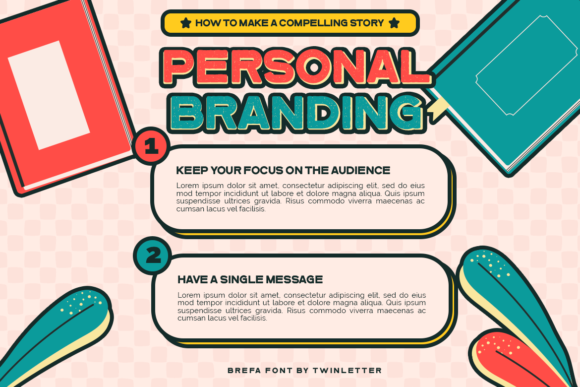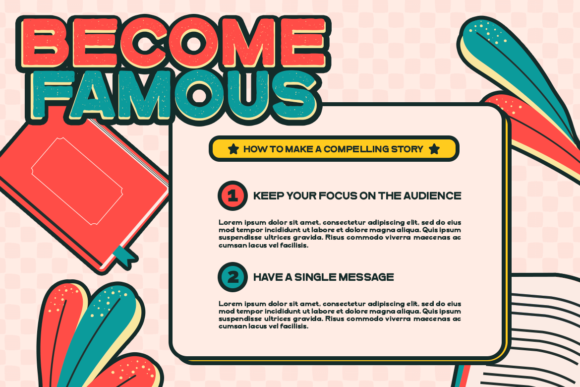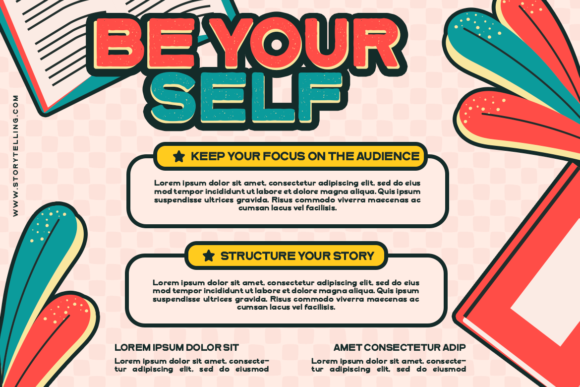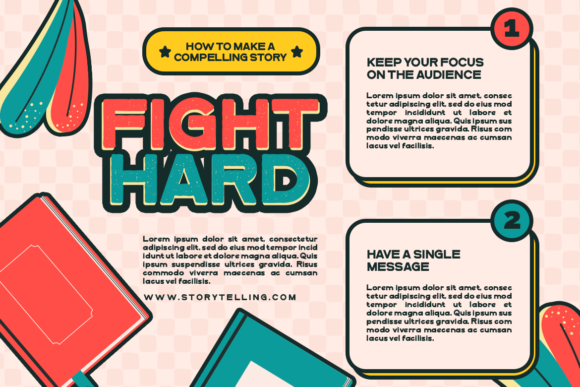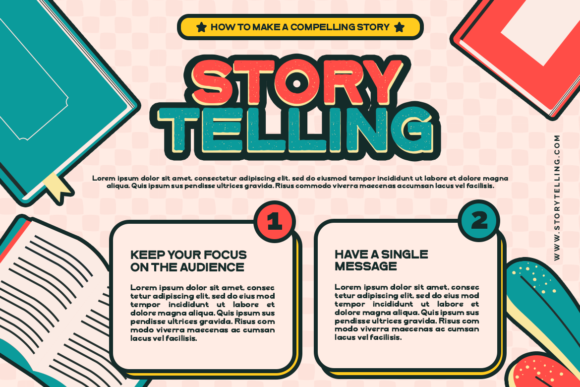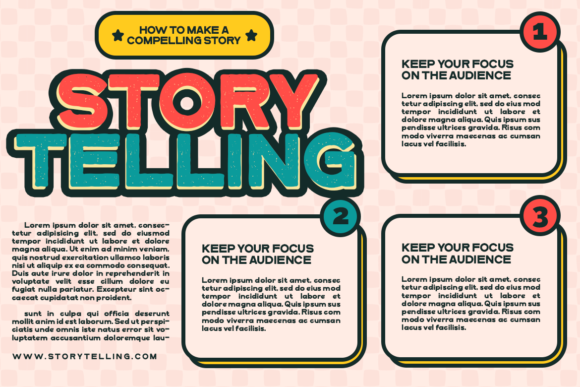
Unleashing Your Creativity with the Perfect Font
Have you ever stared at a blank canvas, eager to bring a fresh design to life, but struggling to find the perfect font to set the tone? We’ve all been there – searching for that elusive combination of style and substance to elevate our work. For designers, the right font can be the difference between a great project and a truly unforgettable one.
Enter the Brefa Font, a bold and eye-catching display font that’s sure to make your designs stand out. With its rough textured and thick lettered design, Brefa Font is perfect for adding a touch of sophistication and personality to your web designs, business cards, or any other project that needs a little extra oomph.
Whether you’re a seasoned pro or just starting out, the Brefa Font is an invaluable addition to any designer’s toolkit. Its versatility and impact make it an essential choice for anyone looking to add a bold touch to their work.
Brefa Font Key Features
- Font Family: Brefa is a sans-serif font family designed for digital use, making it ideal for body text, headings, and titles.
- Character Count: The Brefa font family includes a wide range of characters, including Latin, Cyrillic, and Greek alphabets, as well as punctuation and symbols.
- Unique Characteristics: Brefa’s clean and modern design makes it highly legible, even at small font sizes, and its versatility allows it to work well in a variety of contexts, from corporate branding to creative projects.
- Font Sizes: Brefa is available in 8 font weights, ranging from Light to Black, providing flexibility for designers to create visual hierarchies and emphasis.
Brefa Font Review
I recently had the chance to work with the Brefa Font, and I must say, it’s a unique addition to any design project. ✨ One of the things I appreciate about Brefa is its modern and sleek aesthetic. The font’s clean lines and minimalist approach make it perfect for creating a contemporary feel in any design.
Another aspect I enjoy is the font’s versatility. ✨ Brefa comes in a range of weights and styles, making it suitable for various design applications, from headlines to body text. Additionally, the font’s open-source nature allows for easy modification and customization.
While Brefa is an excellent font, there are a few areas where it falls short. ⚠️ One of the main limitations is its lack of legibility in certain font sizes. At very small sizes, the font can become difficult to read, which may be a concern for designers who need to create content for mobile devices or other small-screen applications.
Overall, I’m impressed with the Brefa Font. Its modern aesthetic and versatility make it a valuable addition to any design project. While it may have some limitations, these can be easily mitigated with proper design choices. If you’re looking for a clean and contemporary font, Brefa is definitely worth considering.
- Modern and sleek aesthetic
- Range of weights and styles
- Open-source and customizable
- Suitable for various design applications
- May struggle with legibility at very small sizes
To achieve the best results, use the Brefa font in combination with other modern and minimalist design elements to create a cohesive look.
To add a professional touch, use the Brefa font in conjunction with bold lines and clean shapes to create a striking visual effect.
To create a visually appealing presentation, use the Brefa font in combination with high-quality images and clean layouts.
The Brefa font is ideal for:
- Creative agency logos and branding materials
- Minimalist business card designs
- Modern website headers and footers